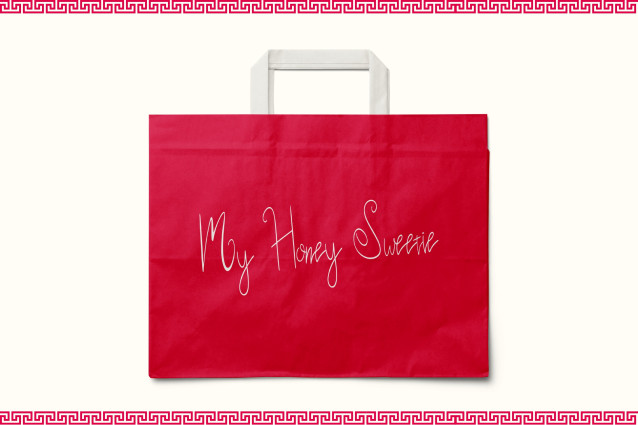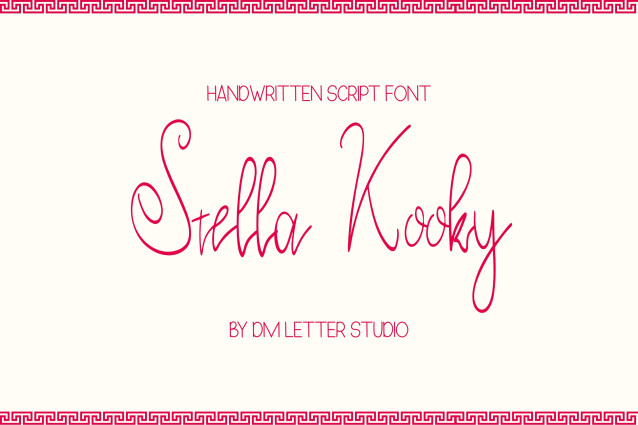
Stella Kooky Font
Stella Kooky Font is a lively and imaginative handwriting script font bursting with personality. With its bouncy baseline, quirky curves, and carefree rhythm, this font adds a fun, childlike spirit to any design. It’s perfect for playful branding, comic-style quotes, cheerful invitations, DIY crafts, and creative social media graphics. StellaKooky brings joyful energy and a spontaneous handwritten touch that makes every project feel lighthearted and one-of-a-kind.